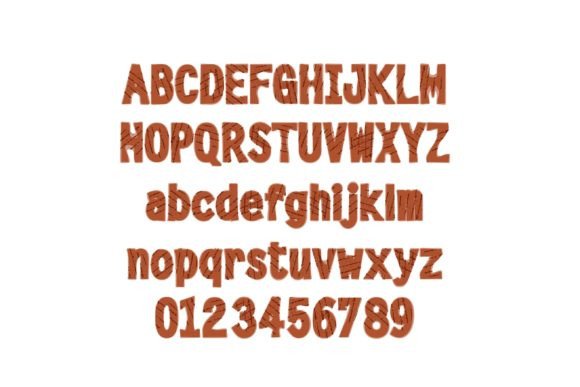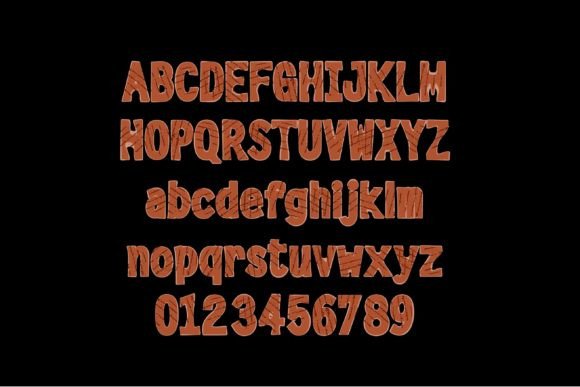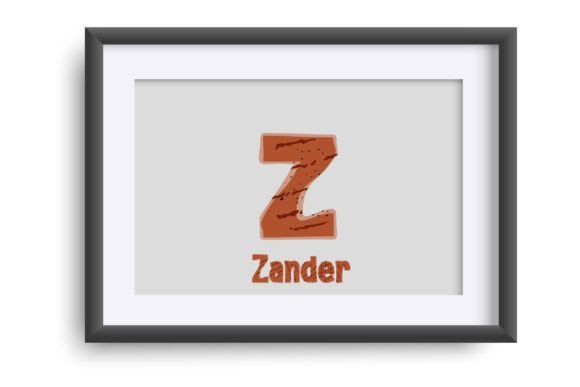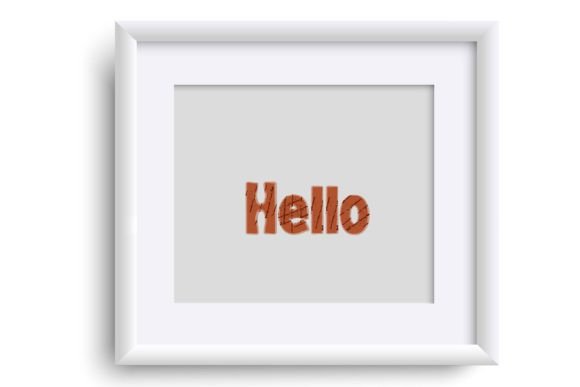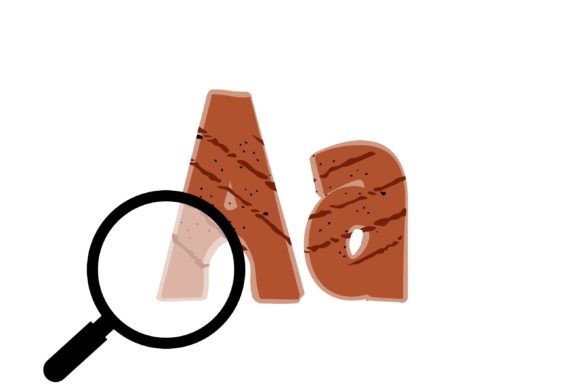
Introducing Grilled Font: Sizzling Hot Typography for Designers and Crafters
Are you tired of using the same old boring fonts in your designs? Look no further! Grilled Font is here to add a sizzling hot touch to your typography. This full-color font features lettering that looks like delicious grilled meat, perfect for designers and crafters who want to add a unique twist to their work.
What are OpenType Full-Color (SVG) Fonts?
The Magic of SVG Fonts
SVG fonts are vector-based, which means they can be scaled to any size without losing quality. This makes them perfect for designers who need to create logos, icons, or illustrations that need to be resized frequently. Plus, SVG fonts come with a full range of colors and styles to choose from, giving you endless creative possibilities.
Tips for Using Grilled Font
To get the most out of Grilled Font, here are some tips:
- Experiment with different colors and styles to create unique combinations.
- Use Grilled Font to add a pop of color to your designs, such as in logos, headings, or titles.
- Combine Grilled Font with other fonts to create interesting contrasts and visual hierarchies.
Benefits of Using Grilled Font
So why choose Grilled Font over other fonts? Here are just a few benefits:
- Unique and eye-catching: Grilled Font adds a touch of personality to your designs, making them stand out from the crowd.
- Scalable: As a vector-based font, Grilled Font can be scaled to any size without losing quality.
- Versatile: With a full range of colors and styles to choose from, you can use Grilled Font in a variety of design projects.
Examples of Grilled Font in Action
Here are some examples of how you can use Grilled Font in your designs:
- Create a sizzling hot logo for a BBQ restaurant or food truck.
- Add a pop of color to your social media graphics or blog posts.
- Design a unique and eye-catching t-shirt or sticker.
Grilled Font is a game-changer for designers and crafters who want to add a unique twist to their typography. With its sizzling hot lettering and versatile design, Grilled Font is perfect for a wide range of design projects. So why settle for boring fonts when you can add a touch of personality to your designs with Grilled Font?
Get Ready to Sizzle with Grilled Font!